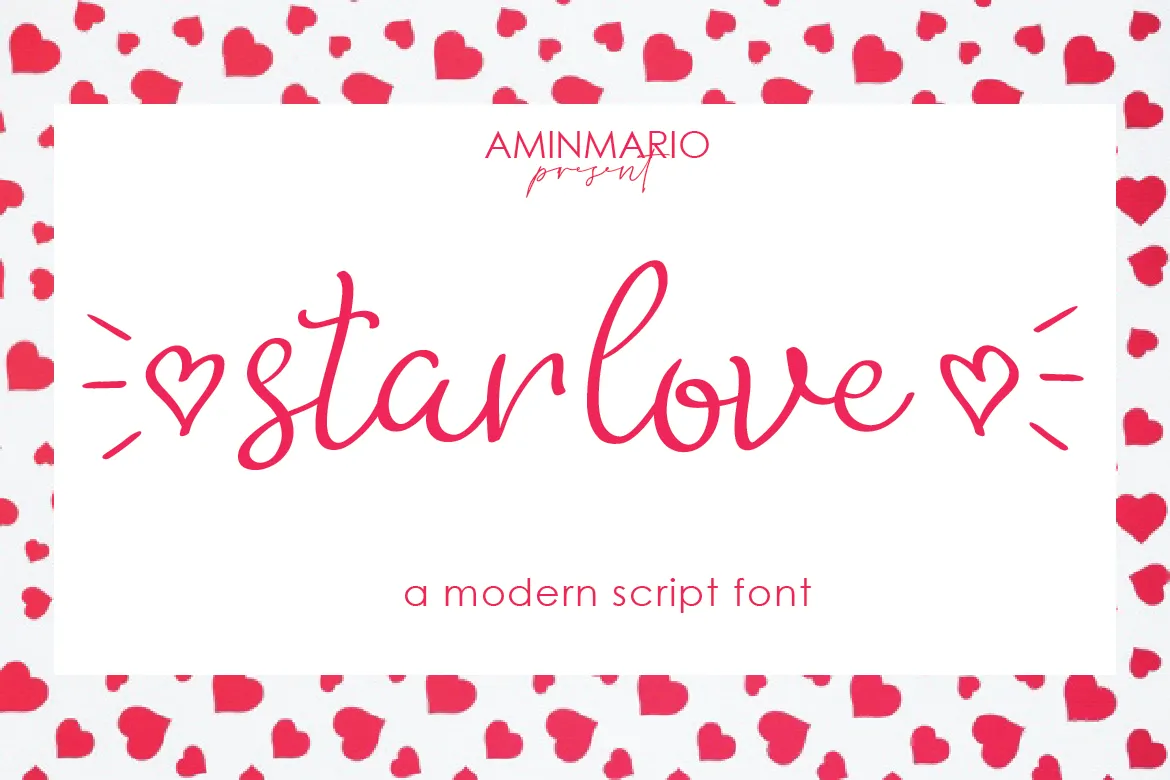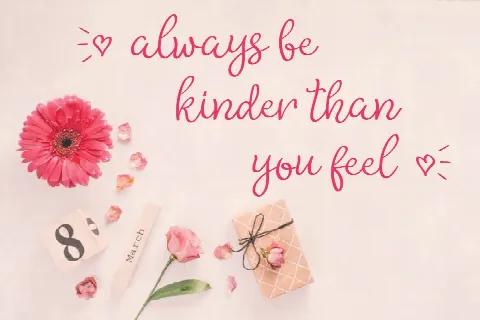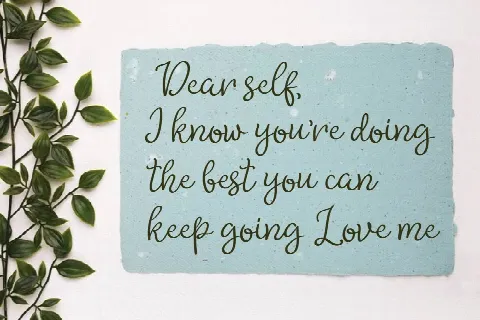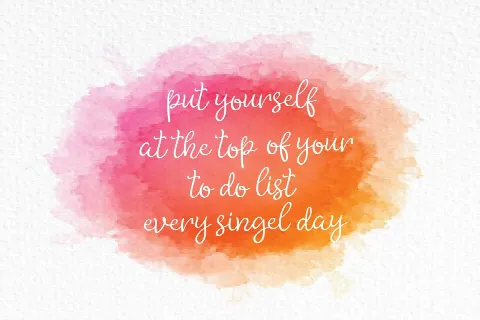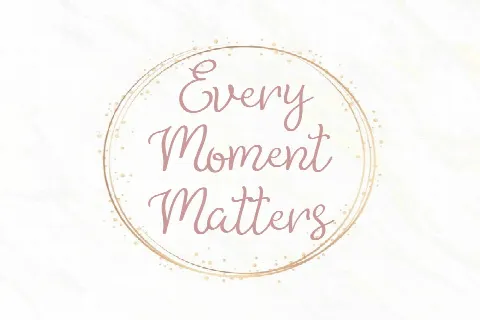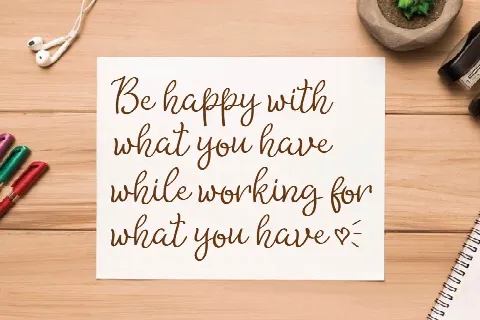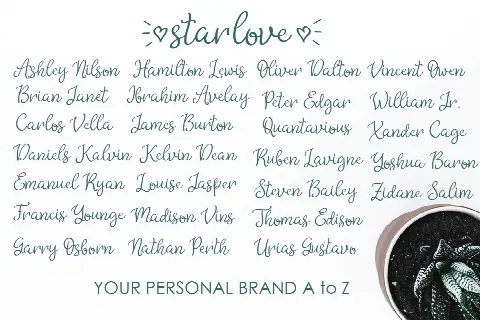
Star Love
Star Love is a modern script, full of personality and curves. This font was designed using quick strokes to create natural handwritten, to give the font a natural look in a digital world. Perfect for any awesome project that need hand writing taste. And good for pairing with Sans or Serif.
This is suitable for quotes, invitations, stationery, wedding design, logos, watermarks on photography, signatures, branding, advertisement, album covers, business cards, clothing, magazines, posters, and more! Also support multilingual.Thanks for checking out this font. I hope you enjoy it!